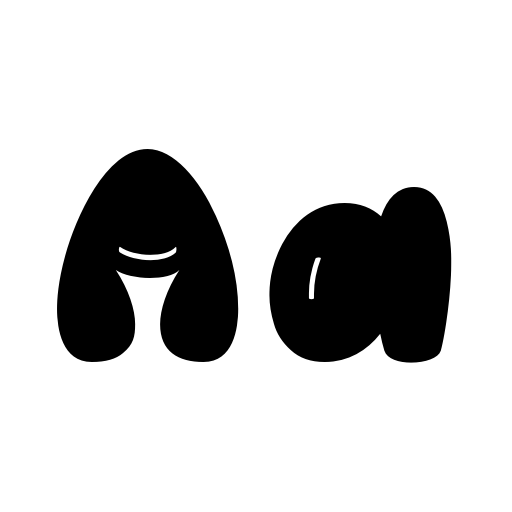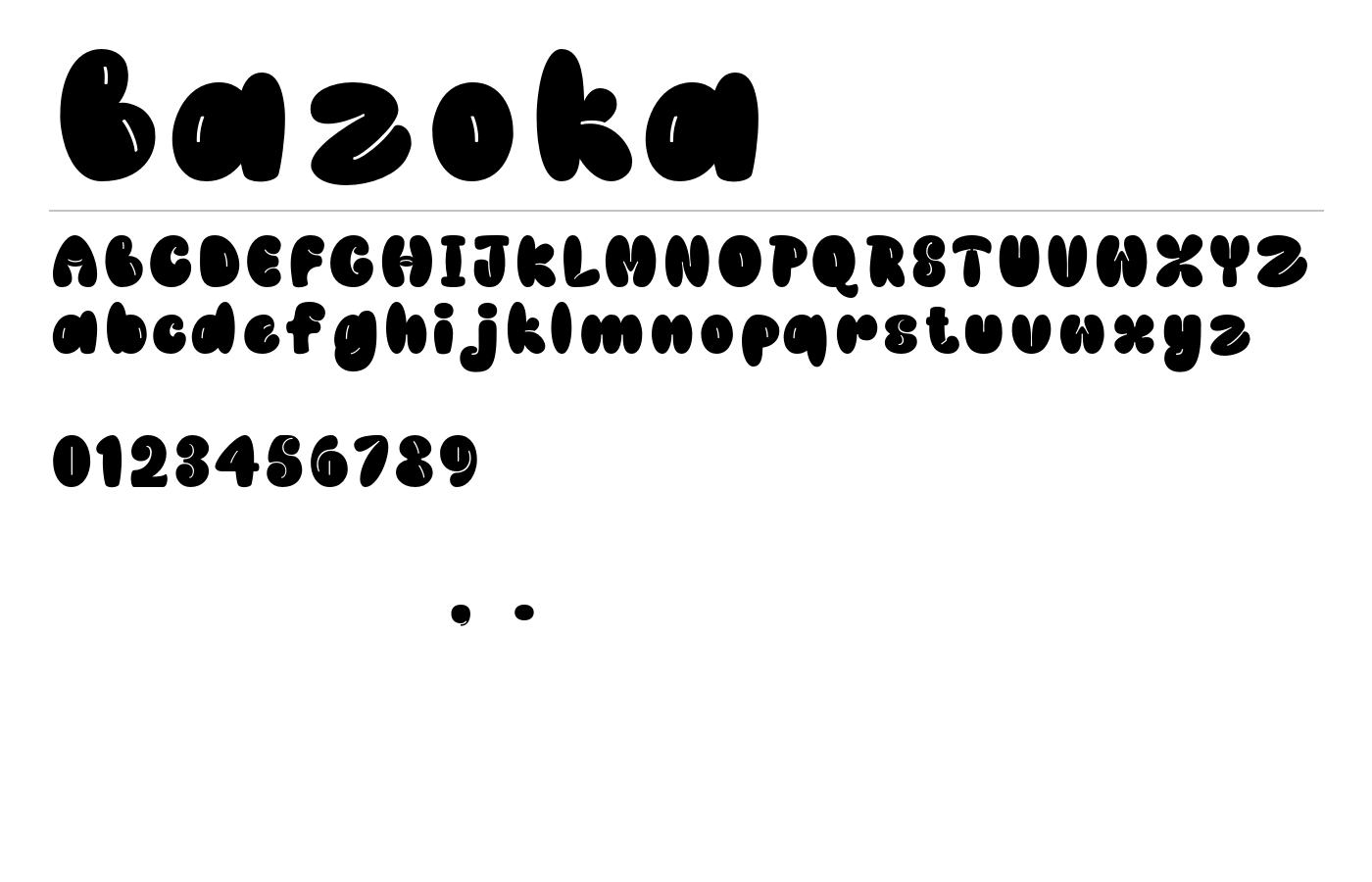
Bazoka is a bold, playful display font with thick, rounded letterforms that evoke a bubbly and fun personality. Its chunky shapes and informal style make it perfect for eye-catching headlines, children's products, or any design that wants to convey energy and friendliness. This font stands out best in creative branding, posters, and casual digital media where a lively and approachable mood is desired.
Bazoka Font
About Bazoka Font